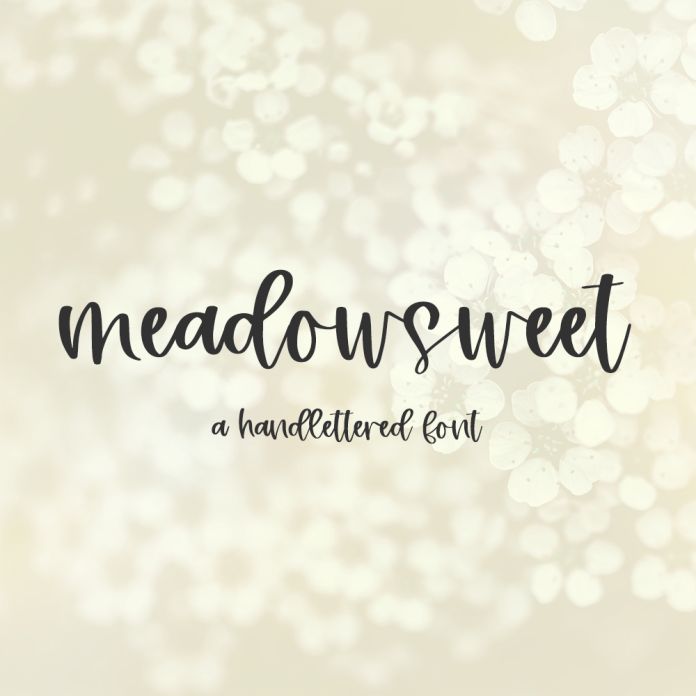
Introducing Meadowsweet, a modern calligraphy script.
Meadowsweet is best for:
- feminine, crafty projects with your Silhouette machine, or your SVG design business